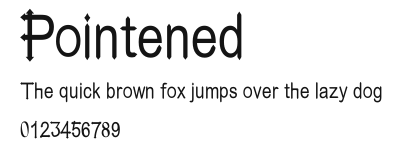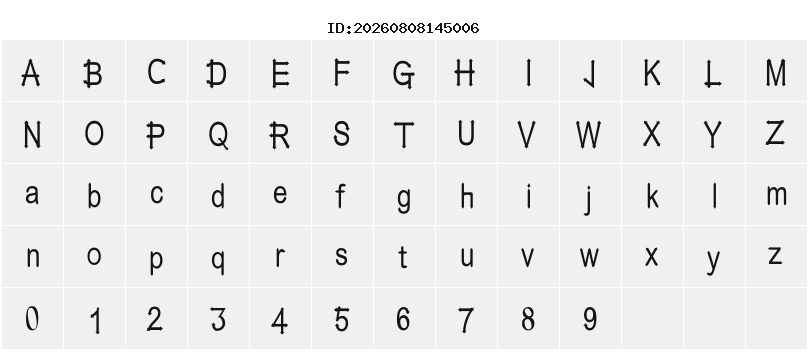
• Font Name: Pointened
• Designer: Biffe
About Pointened.ttf
Pointened.ttf is a modern, elegant sans-serif font designed for ultimate readability and visual harmony. Perfect for branding, headlines, web design, and print materials.